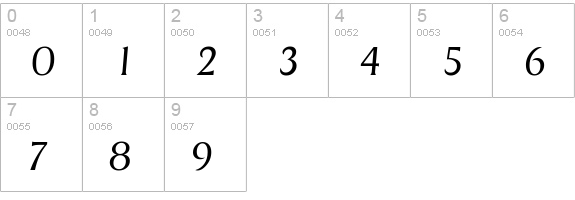
GriffonLight kursiv Font Details
GriffonLight kursiv font is a stunning display of elegance and sophistication. Its delicate strokes and graceful curves exude a sense of refinement and style, making it the perfect choice for projects that require a touch of sophistication. This font effortlessly combines classic beauty with modern flair, creating a timeless look that is sure to impress. The best part? GriffonLight kursiv font is available for free download at FontsMarket.com! That's right, you can elevate your designs with this exquisite font without having to spend a penny. Whether you're working on a professional project or simply want to add some elegance to your personal creations, GriffonLight kursiv font is the ideal choice. Download it now and let your creativity soar with this beautiful and freely available font.